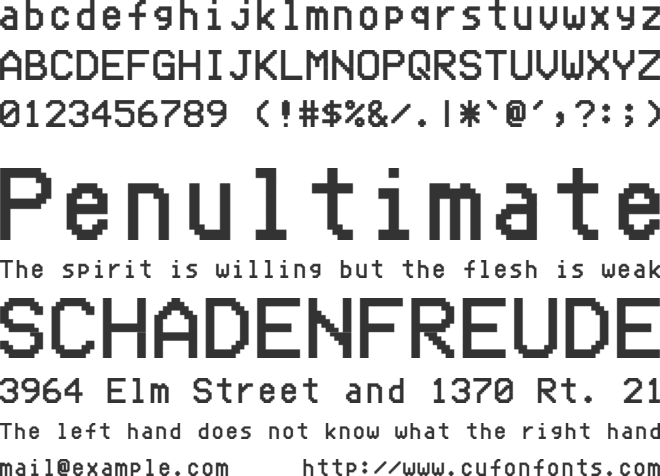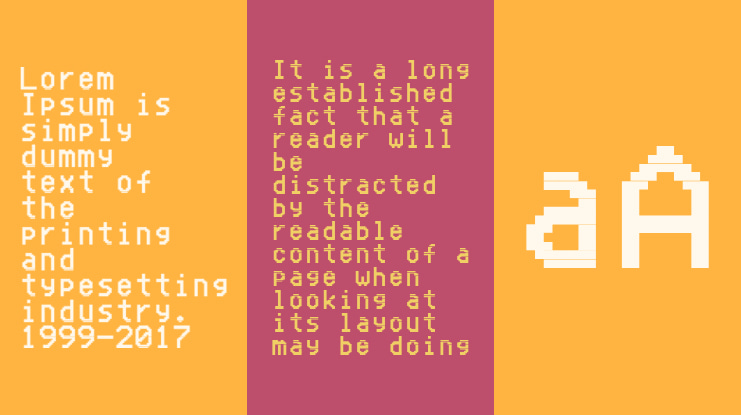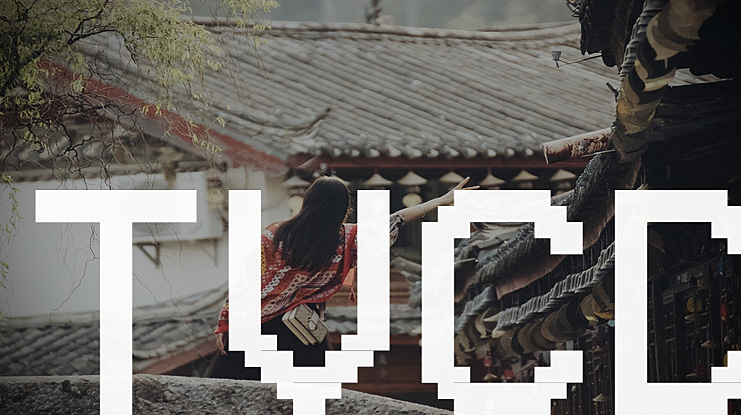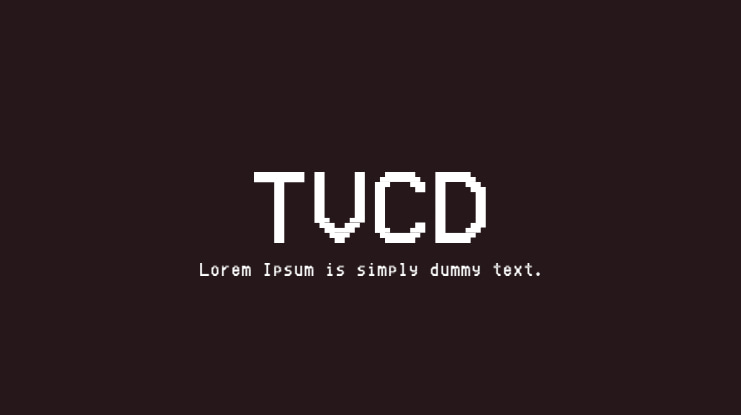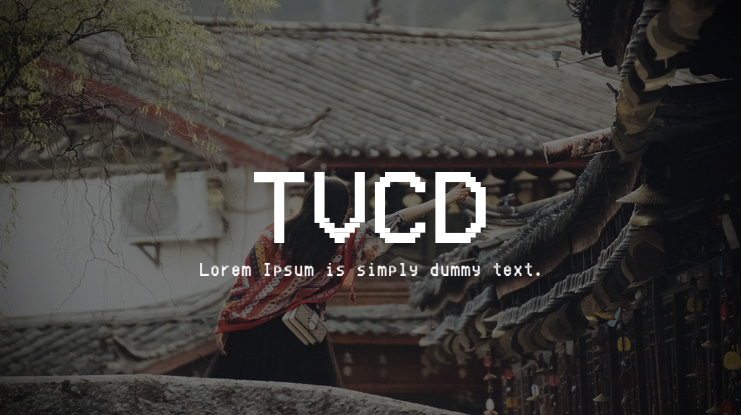
TVCD Font
I remember when I made a font that inspired a TV set. I had so much fun with it because back then I used it for video subtitles. It kind of looked like closed captioning on an old TV set.
TVCD font preview